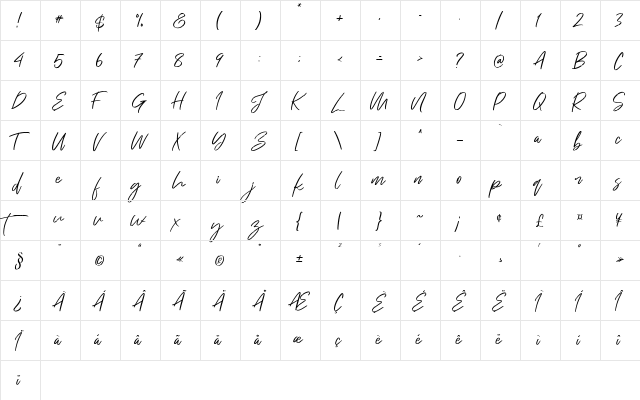
Just Kelly Justine Regular
| Foundry | Khurasan |
| Designer | Khurasan |
Design Context for Just Kelly Justine Typeface
Just Kelly Justine is a composed and adaptable typeface that performs quietly and consistently across a wide range of design contexts.